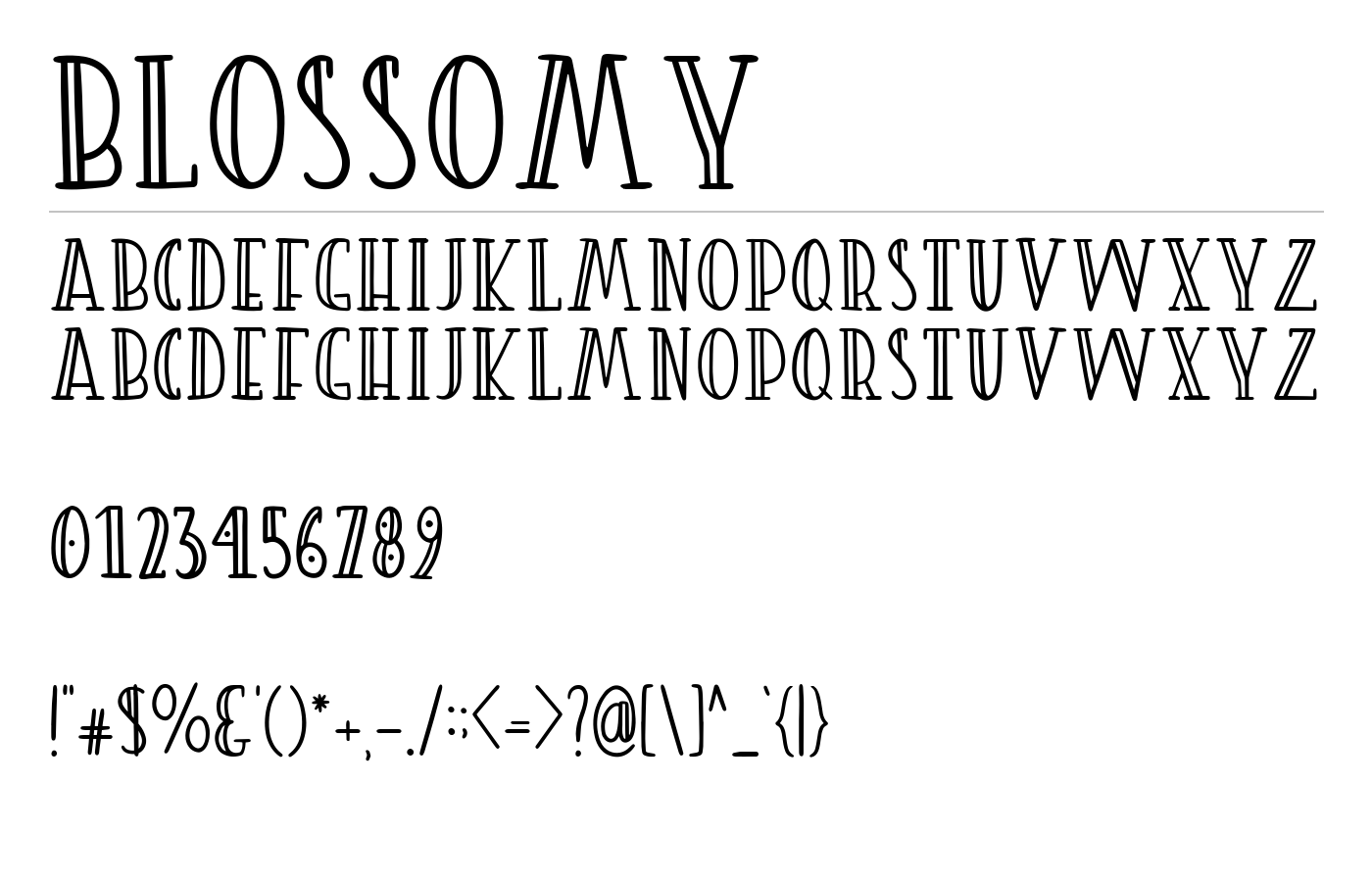
Blossomy is a playful and quirky serif font that features tall, narrow letterforms with a light weight and subtle stroke contrast. Its hand-drawn style and slightly irregular shapes give it a charming, whimsical personality, ideal for creative headings, logos, and projects that want to convey a friendly and artistic vibe. This font works well in branding, posters, and editorial designs where uniqueness and character are key.
Blossomy Font
About Blossomy Font
| Font family | Blossomy Font |
| Designer | Emylia |